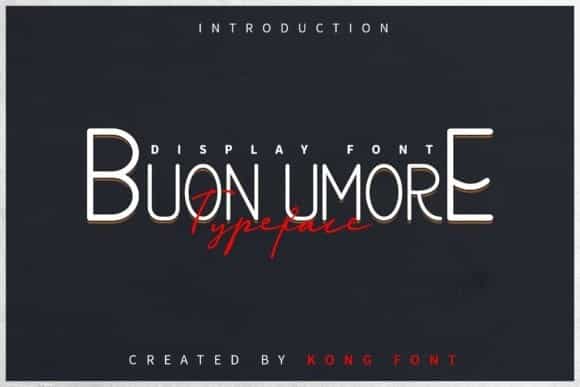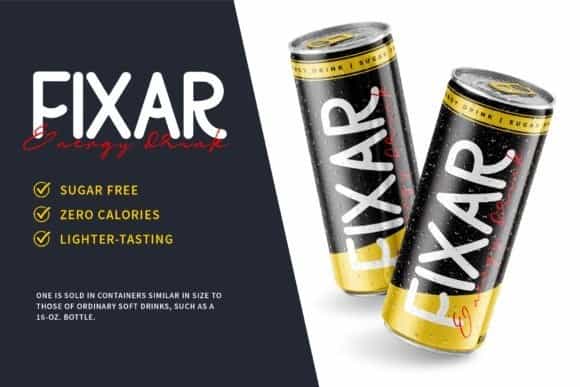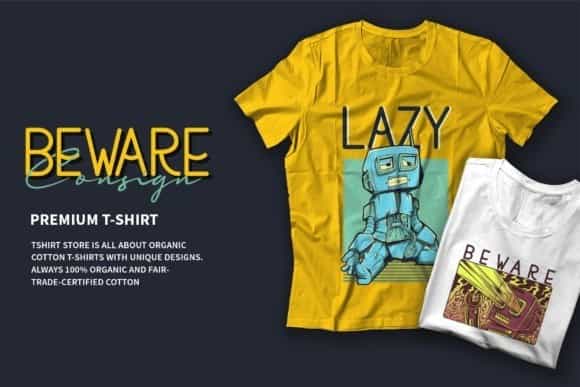
Buon Umore is a brand new round sans serif font. The styles of the font are modern and therefore very suitable for advertising, brands and logos headlines of your book or magazine. They will add to the figure displayed on your watch face as well as many others.